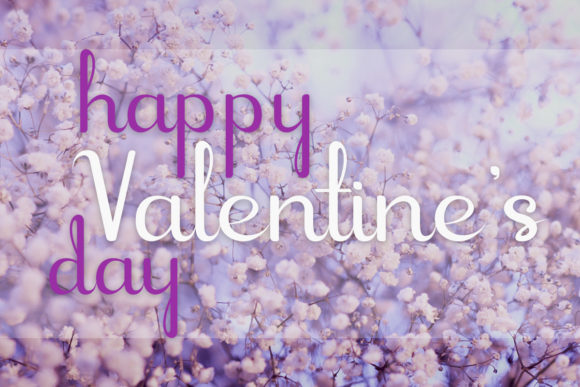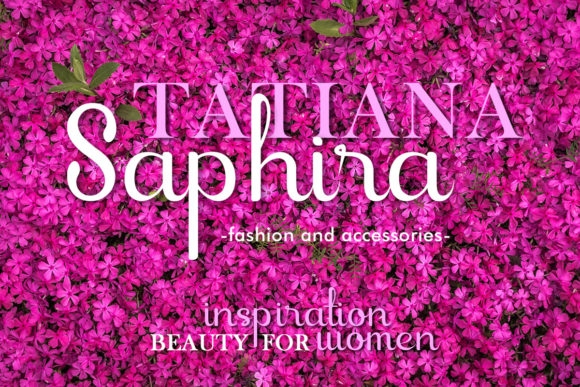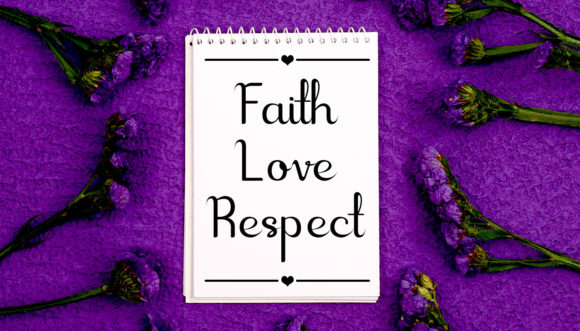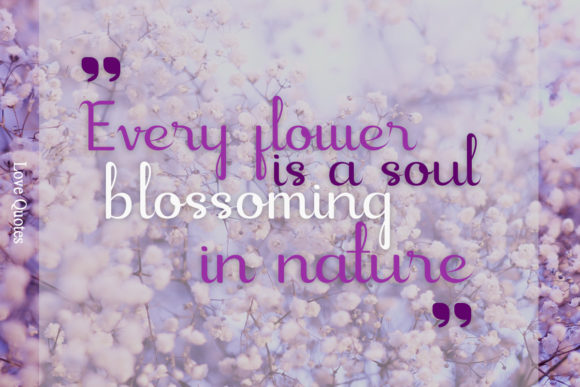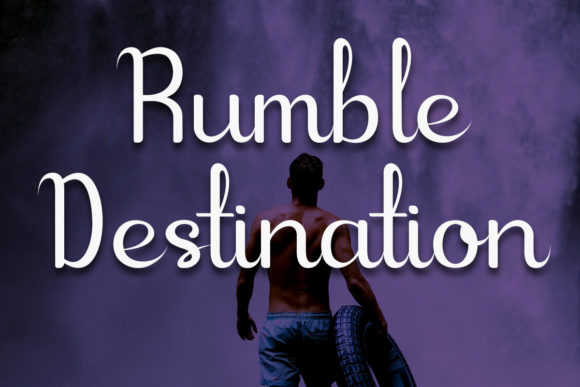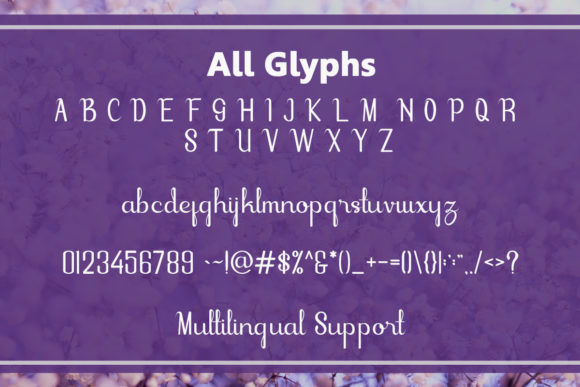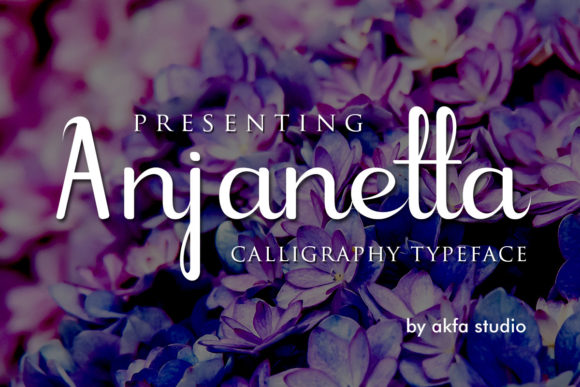
Introducing Anjanetta Font: Elevate Your Designs with Delicate Elegance
Are you a designer or crafter looking for a font that adds a touch of sophistication and elegance to your creations? Look no further than Anjanetta Font. This beautiful script font is designed to elevate your designs, whether you’re working on packaging products, invitation cards, flyers, mockups, event posters, letters, clothing, labels, or any other project that requires a high-quality touch.
The Versatility of Anjanetta Font
Anjanetta Font is an incredibly versatile font that can be used across a wide range of design applications. Its delicate script style makes it perfect for:
- Packaging products: Add a touch of luxury to your product packaging with Anjanetta Font.
- Invitation cards: Create beautiful and elegant invitation cards for weddings, parties, and other special events.
- Flyers: Design eye-catching flyers that showcase your products or services with style and sophistication.
- Mockups: Use Anjanetta Font to add a professional touch to your mockups and presentations.
- Event posters: Create stunning event posters that grab attention and leave a lasting impression.
- Lettering: Add a personal touch to your letters and correspondence with Anjanetta Font.
- Clothing: Use Anjanetta Font to create beautiful labels and tags for your clothing brand.
- Labels: Design professional-looking labels for your products with Anjanetta Font.
Why Choose Anjanetta Font?
So, why should you choose Anjanetta Font for your design projects? Here are just a few reasons:
- Elegant and sophisticated: Anjanetta Font has a delicate script style that adds a touch of elegance and sophistication to any design.
- High-quality: This font is designed to provide a high-quality touch to your designs, making it perfect for professional applications.
- Versatile: Anjanetta Font can be used across a wide range of design applications, making it a great addition to your font library.
Design Tips and Inspiration
To get the most out of Anjanetta Font, here are a few design tips and inspiration ideas:
- Pair with bold fonts: Pair Anjanetta Font with bold fonts to create a striking contrast and add visual interest to your designs.
- Use in combination with images: Use Anjanetta Font in combination with beautiful images to create stunning designs that tell a story.
- Experiment with colors: Experiment with different colors and textures to add depth and interest to your designs.
- Keep it simple: Don’t be afraid to keep your designs simple and elegant. Anjanetta Font is perfect for minimalist designs that make a big impact.
In conclusion, Anjanetta Font is a beautiful and versatile script font that can elevate any design project. Its delicate script style, high-quality touch, and ease of use make it a great addition to any font library. Whether you’re a designer or crafter, Anjanetta Font is a must-have font that will help you create stunning designs that leave a lasting impression.